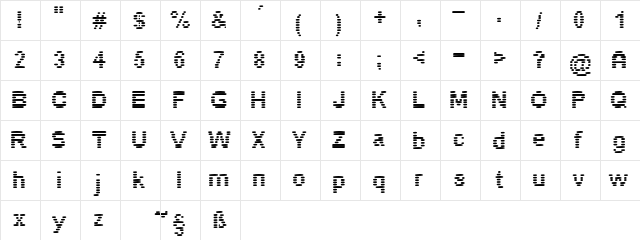
pixelino Regular Font Preview
pixelino Regular
pixelino Regular Font Details
Design Context for pixelino Typeface
pixelino is rooted in pixel-grid construction, making it a natural fit for game UI, retro computing aesthetics, and digital nostalgia projects.
Well-suited to indie game interfaces, retro computing aesthetics, and pixel art-adjacent design work.
Pro Tip: Use pixelino at sizes that align with its pixel grid for the sharpest rendering — scaling to non-integer multiples can introduce unwanted blur.